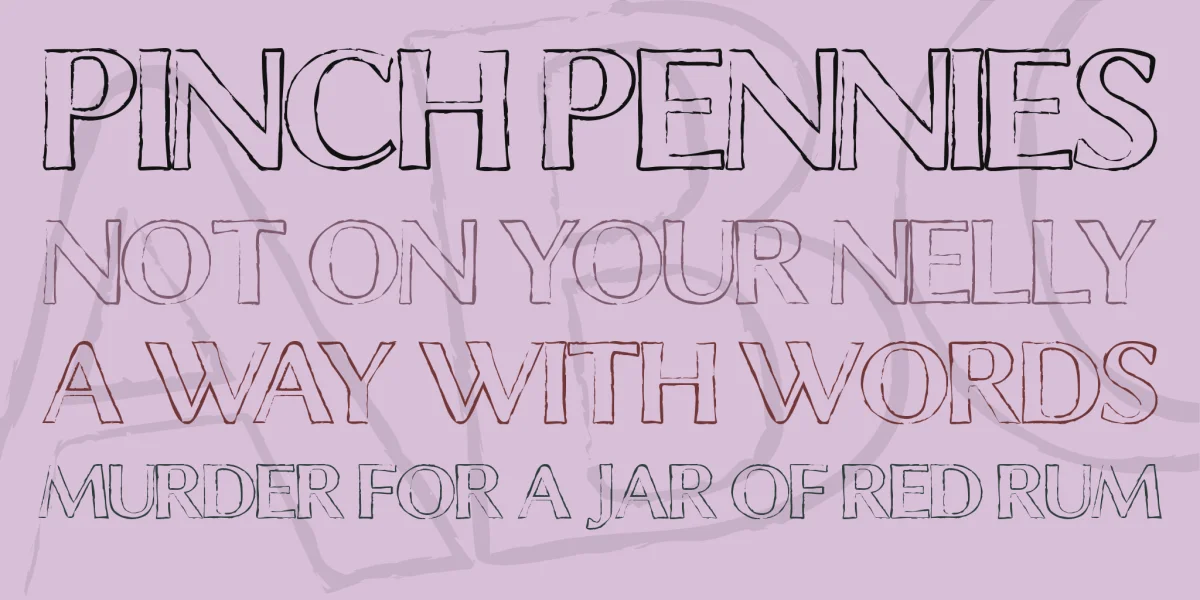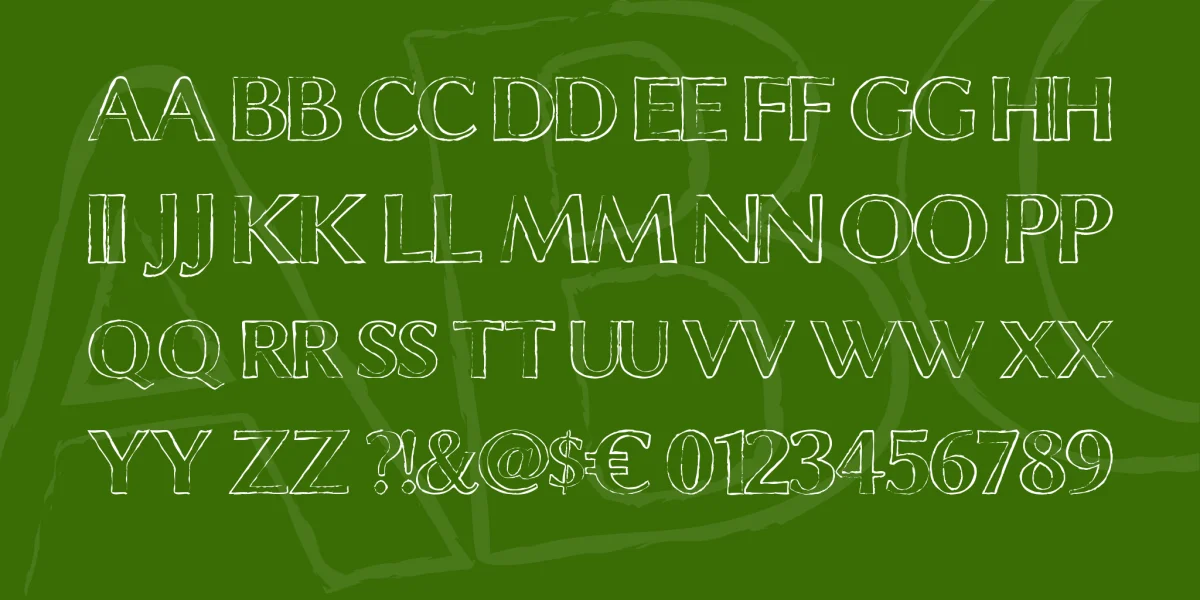
The Chalk Line font is a chalk-like outline font designed by me. This font may be heavy to load. The font is based on Linux Biolinum Bold. I created this font using Fontographer 5 and Adobe Illustrator. Like all other fonts, this font is available in TrueType and OpenType formats, and it is in the public domain.